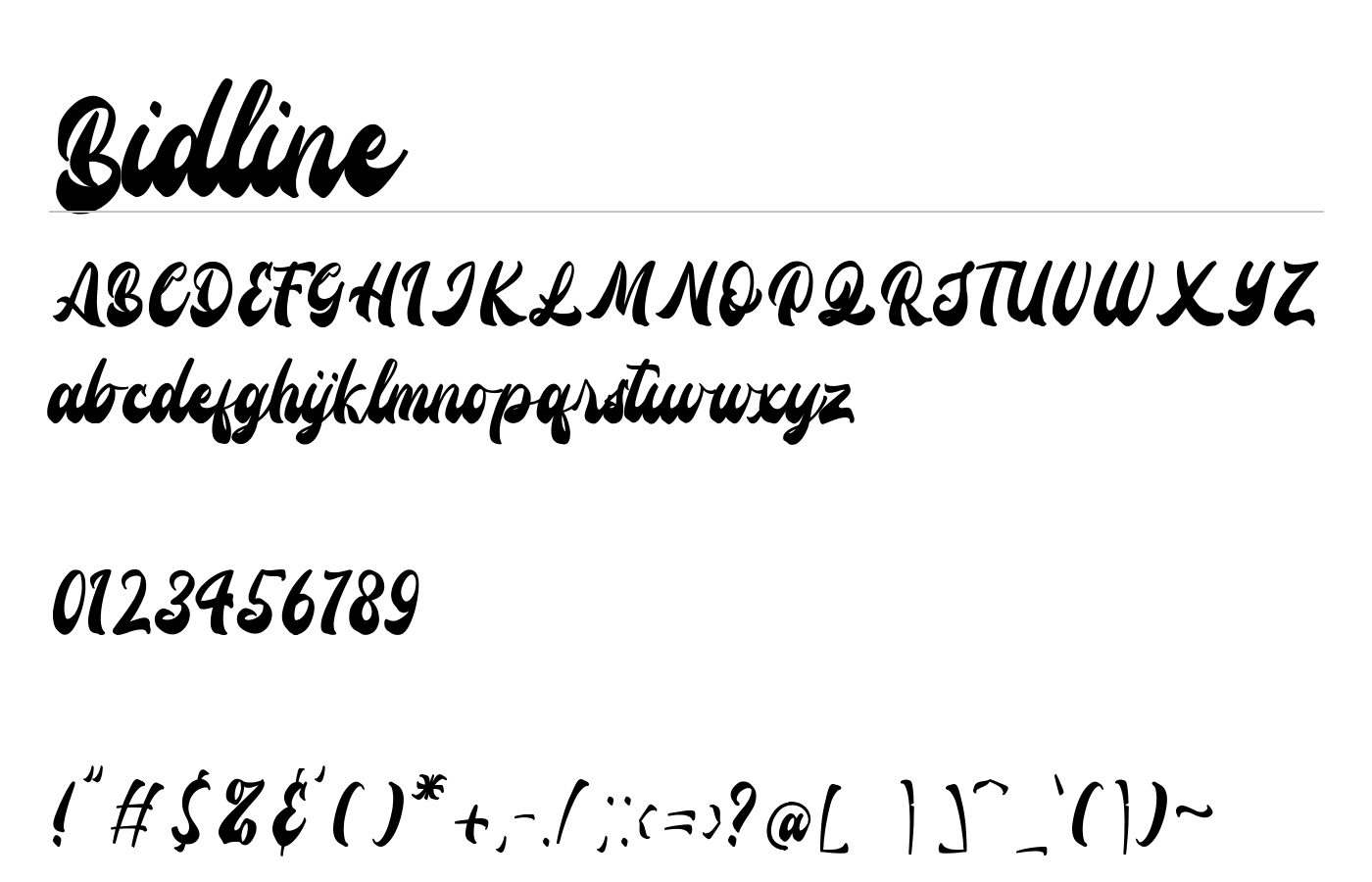
Bidline is a bold and lively script font that offers a smooth, hand-drawn feel with its flowing, connected letterforms. Its thick strokes and elegant curves create a warm, inviting personality, making it a great choice for branding, invitations, and headlines that need a stylish yet approachable touch. The font’s clear readability combined with its artistic flair makes it ideal for designs that seek to blend creativity with strong visual impact.
Bidline Font
About Bidline Font
| Font family | Bidline Font |
| Designer | Burnoth Design Company |